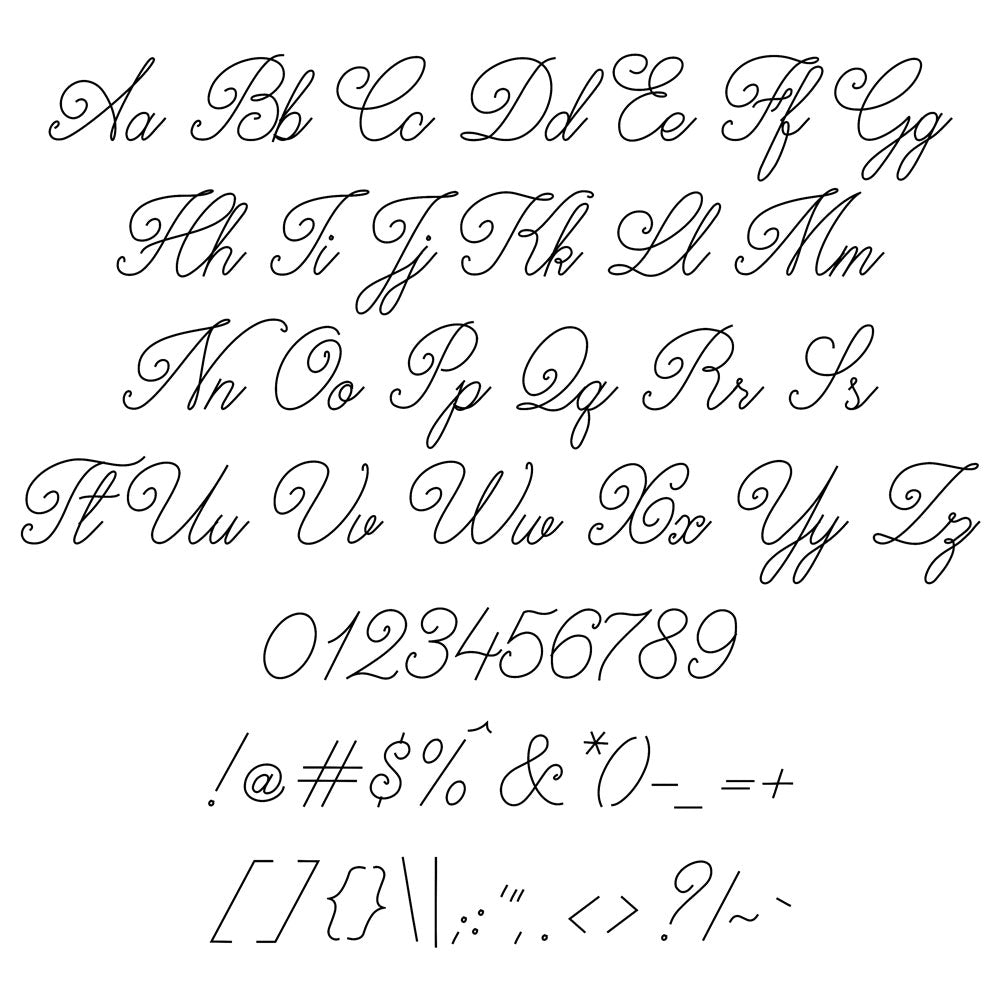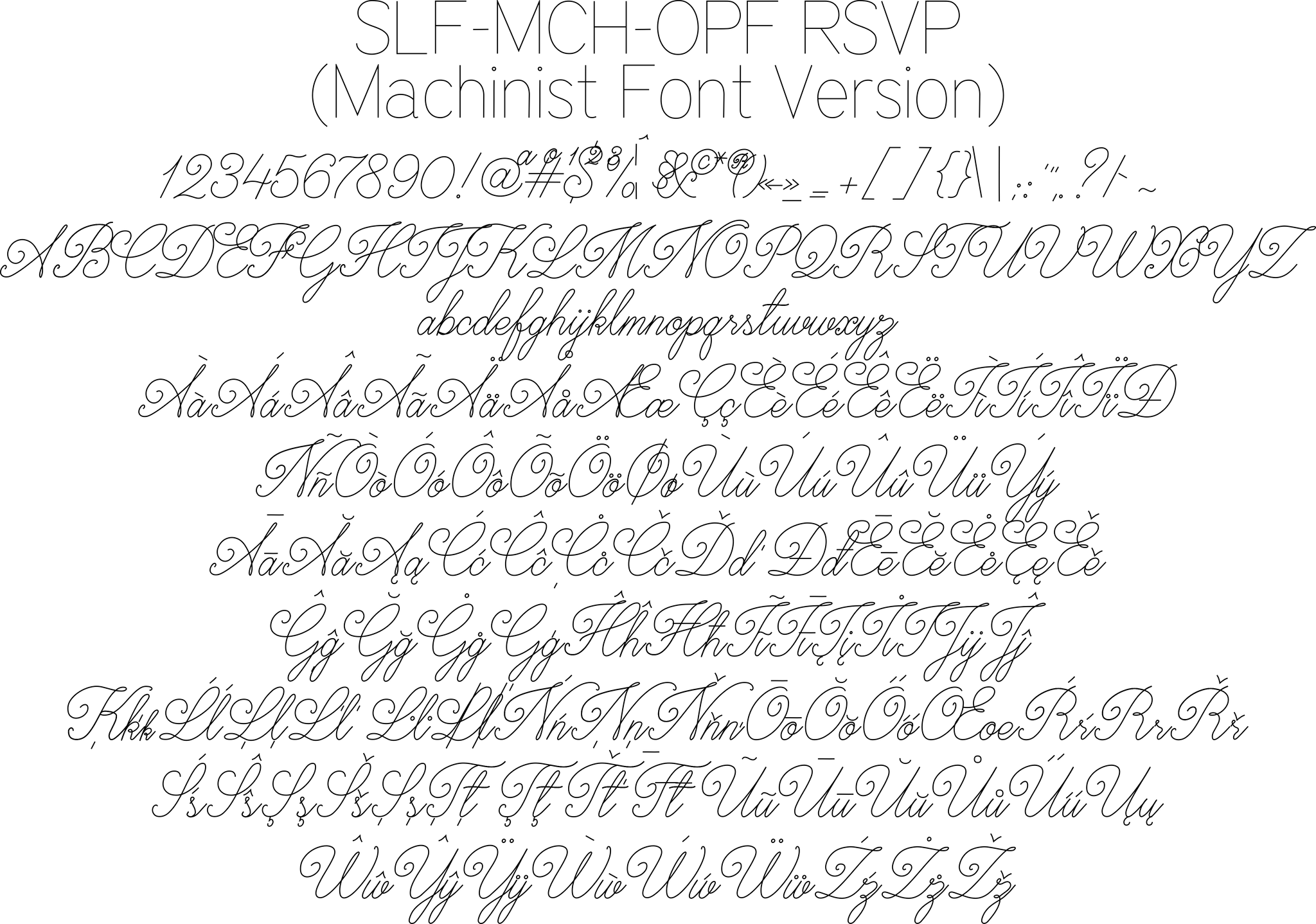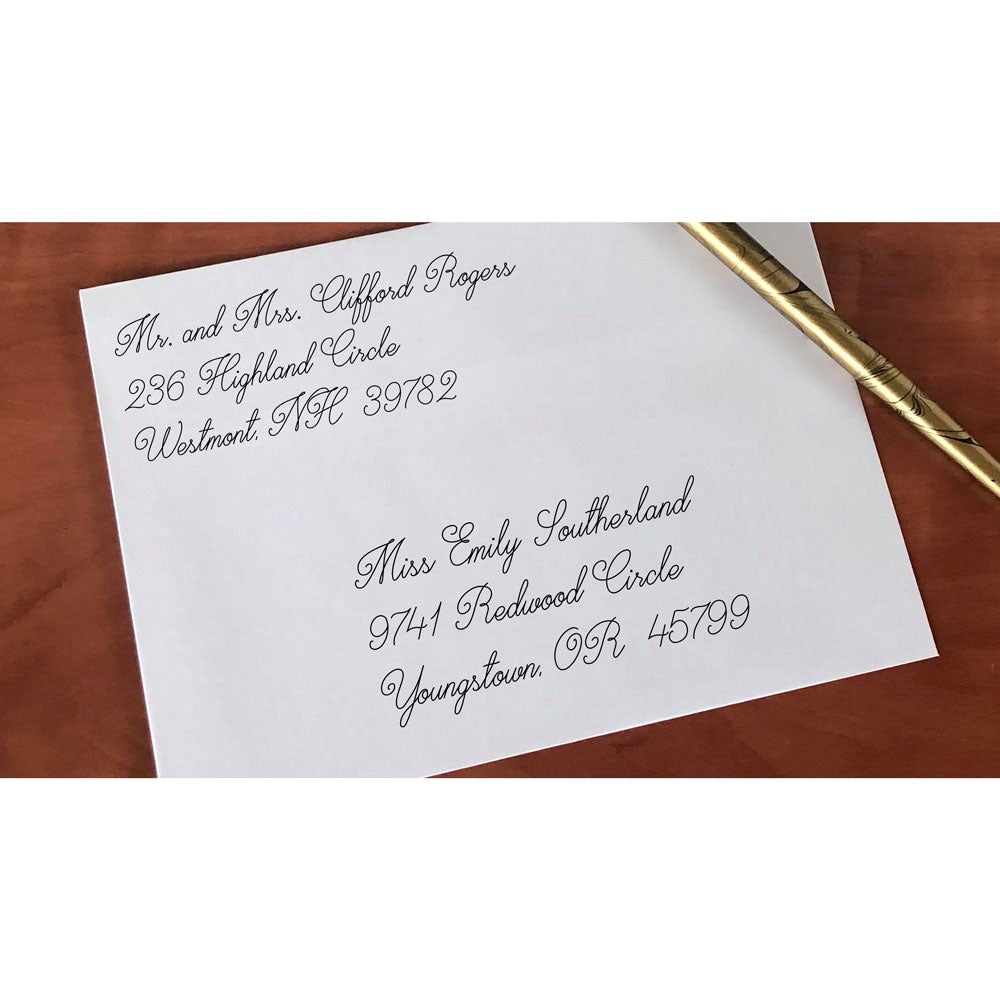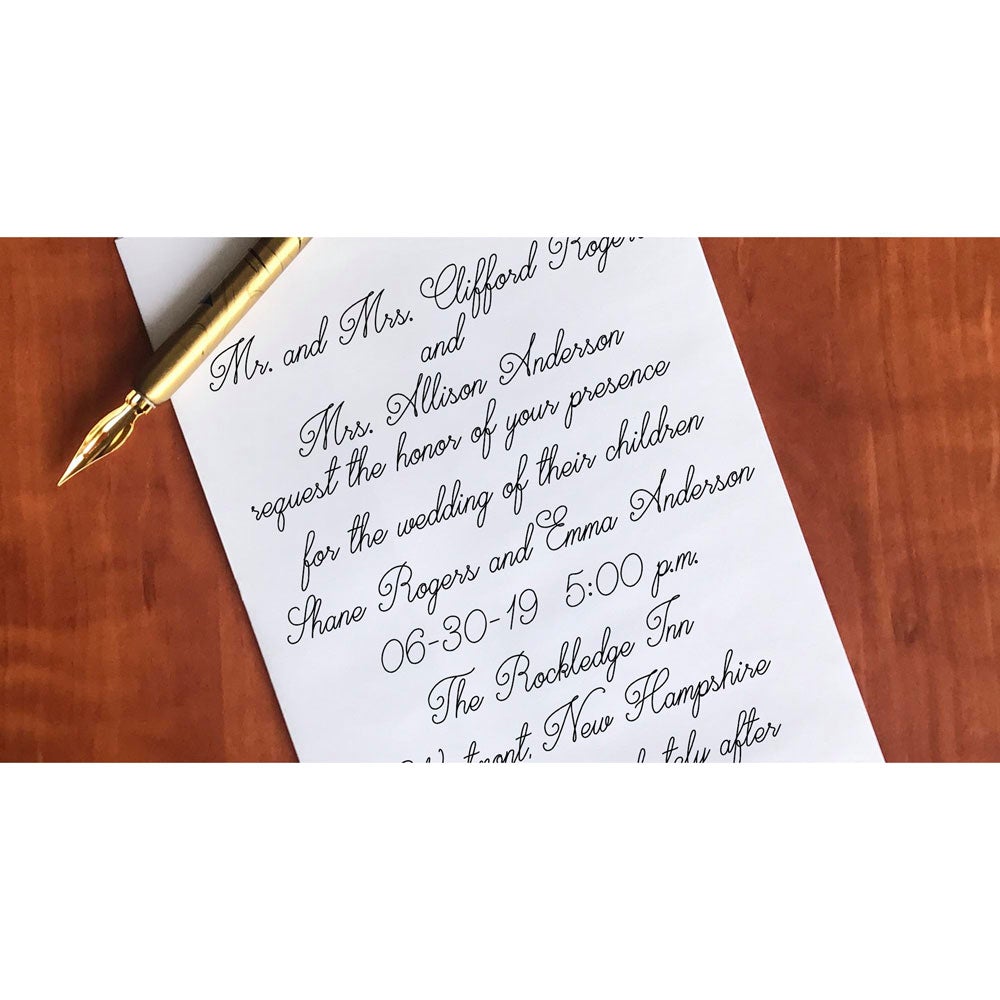
Machinist Single Line Font "RSVP"
Introducing our NEW Machinist font version!   This font gives you the ability to join letters so that each word is a continuous path.  Imagine how much time you will save on your projects!